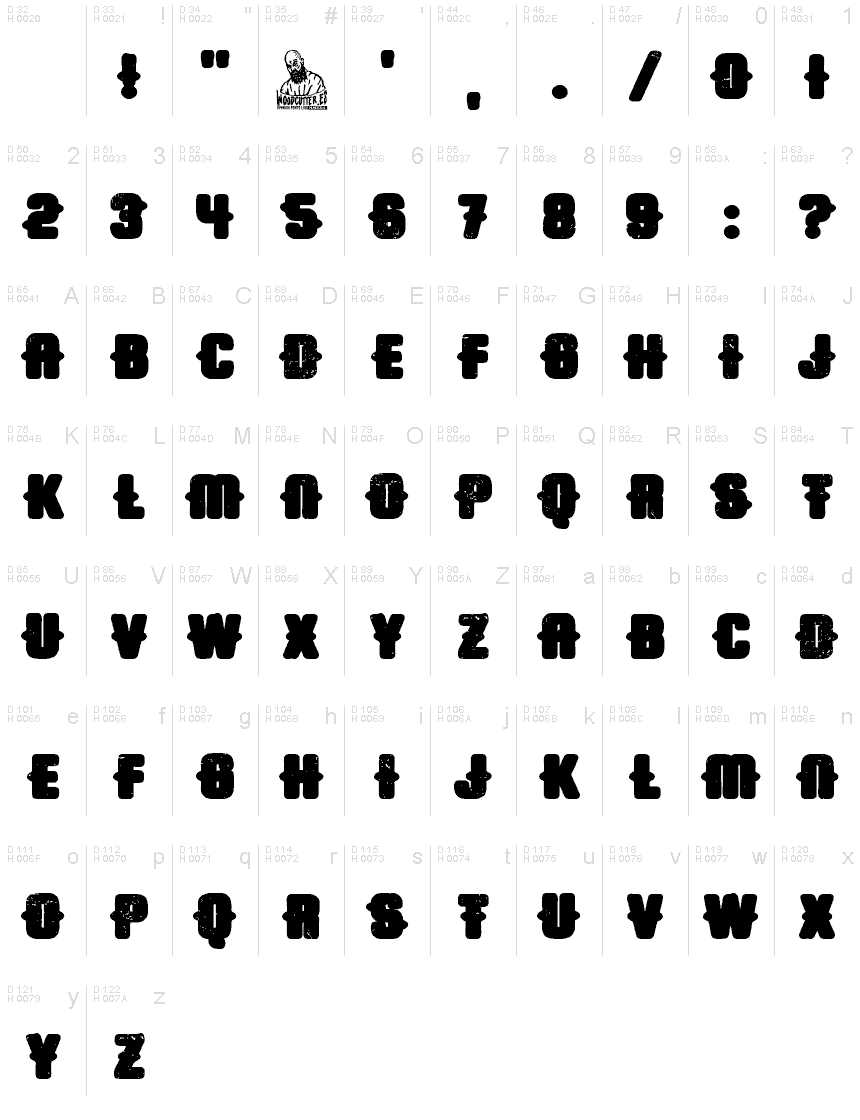
Trap Airlines
Trap Airlines font by Woodcutter is a bold eroded display font with an industrial and modern grunge aesthetic. Its distressed texture and urban vibe create an impactful presence, perfect for edgy projects looking to make a statement.